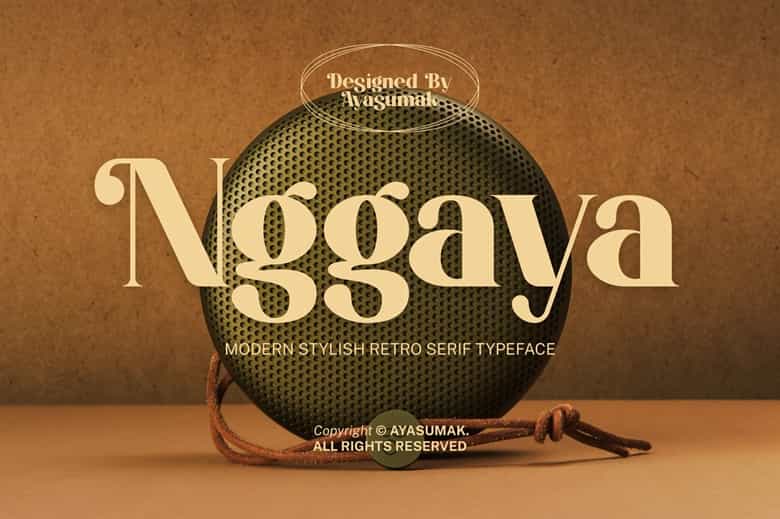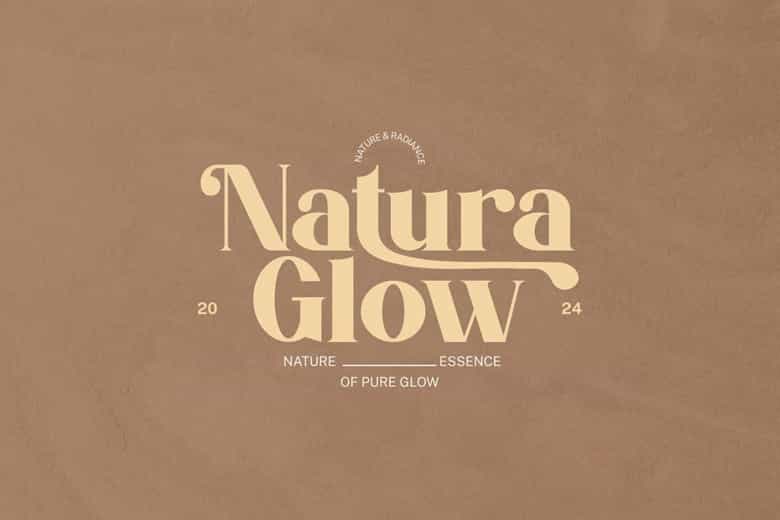
Nggaya is a stylish retro rounded serif font with a modern professional touch perfect for headlines, title, logo, merchandise, apparel, magazines, beauty and fashion products, upload.,